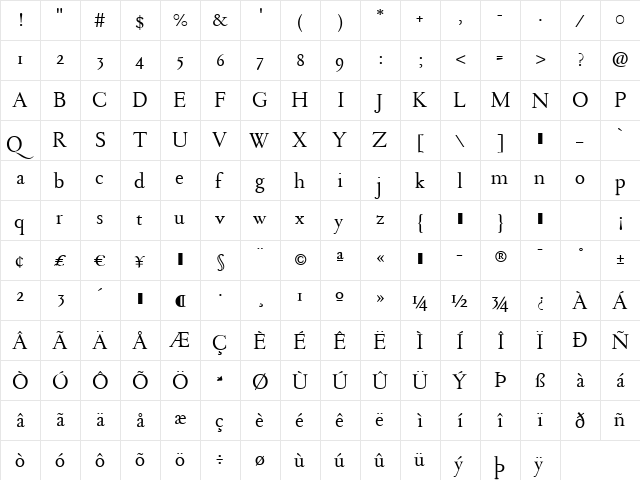
Monteverdi Regular
Design Context for Monteverdi Typeface
Monteverdi is a composed and adaptable typeface that performs quietly and consistently across a wide range of design contexts.